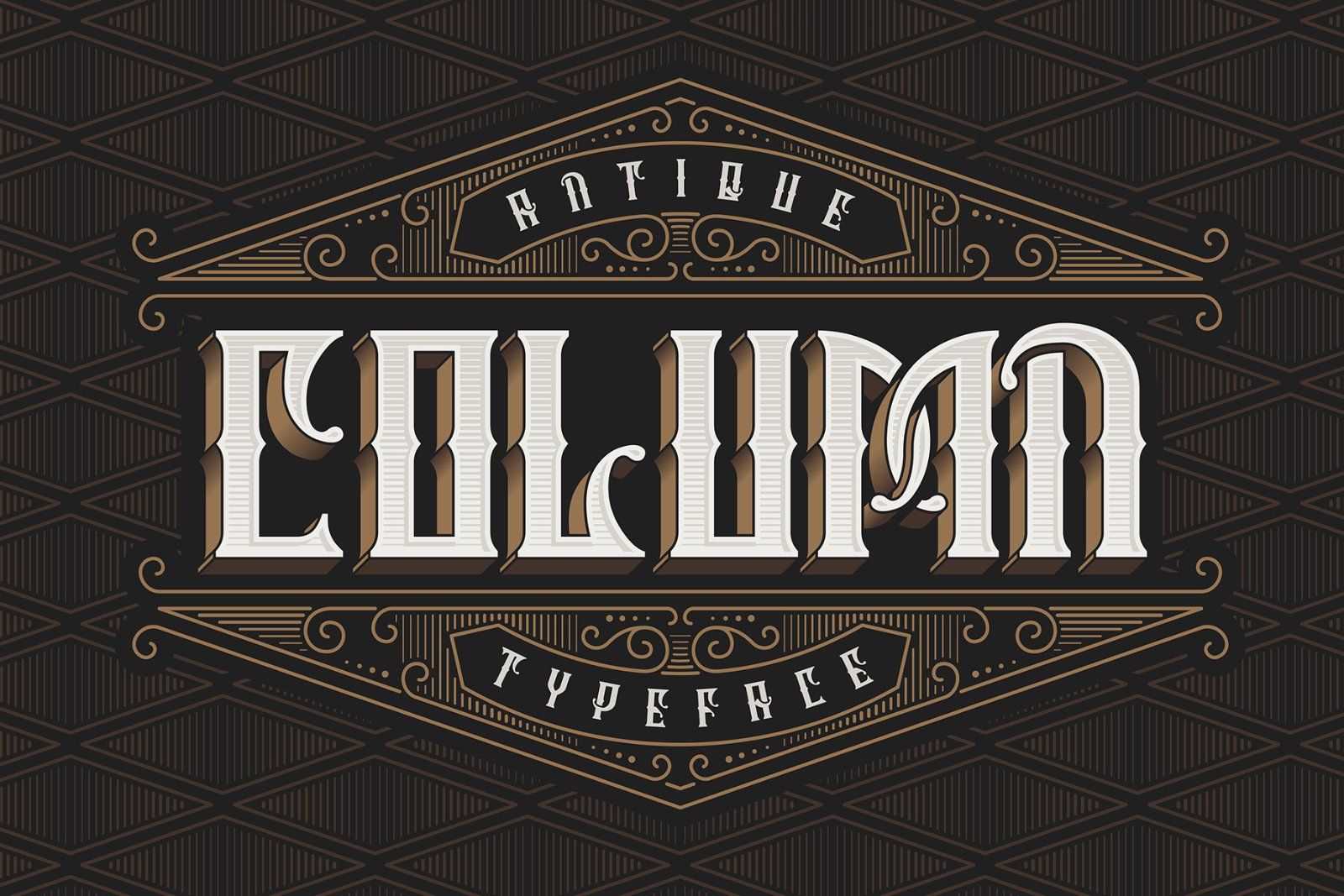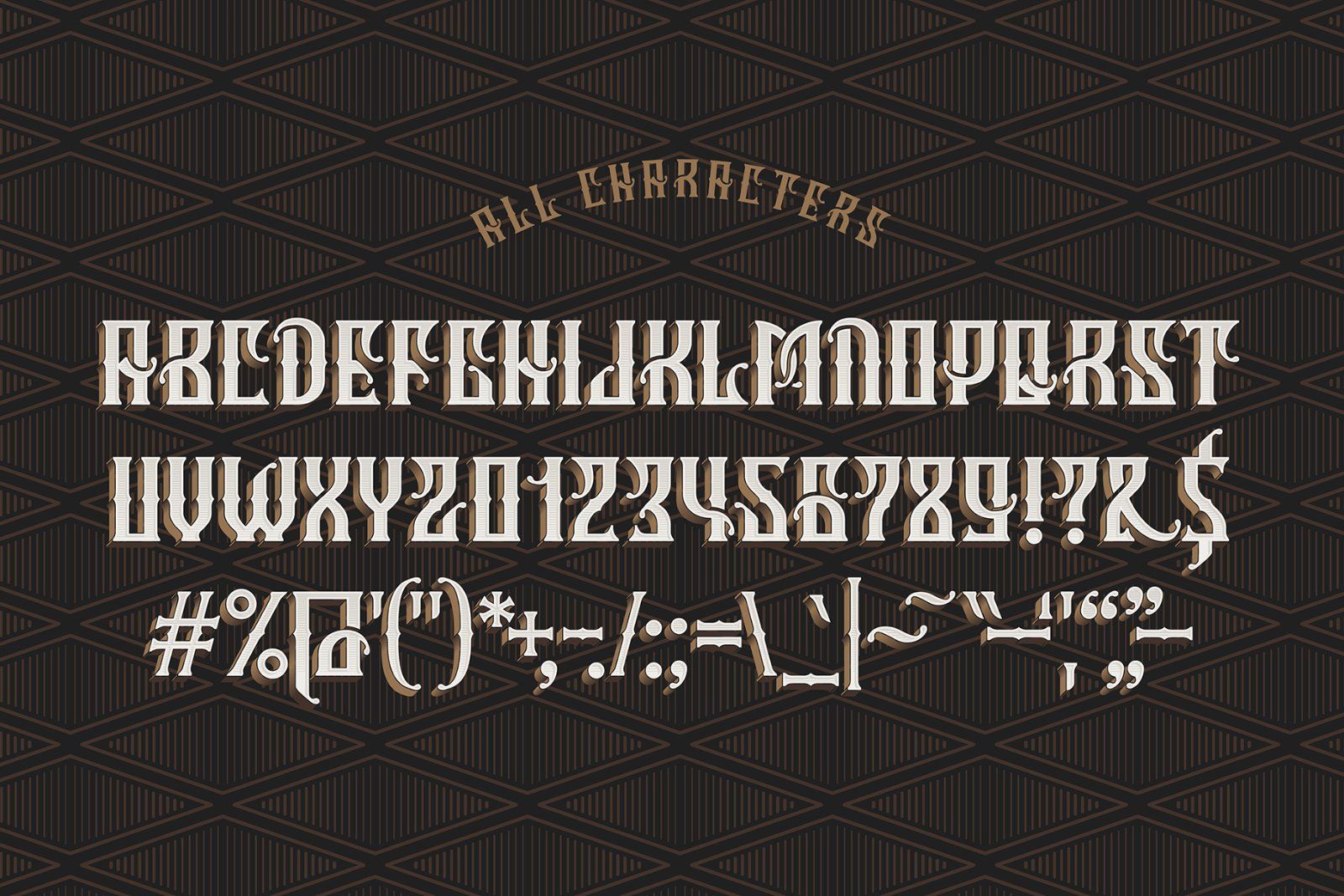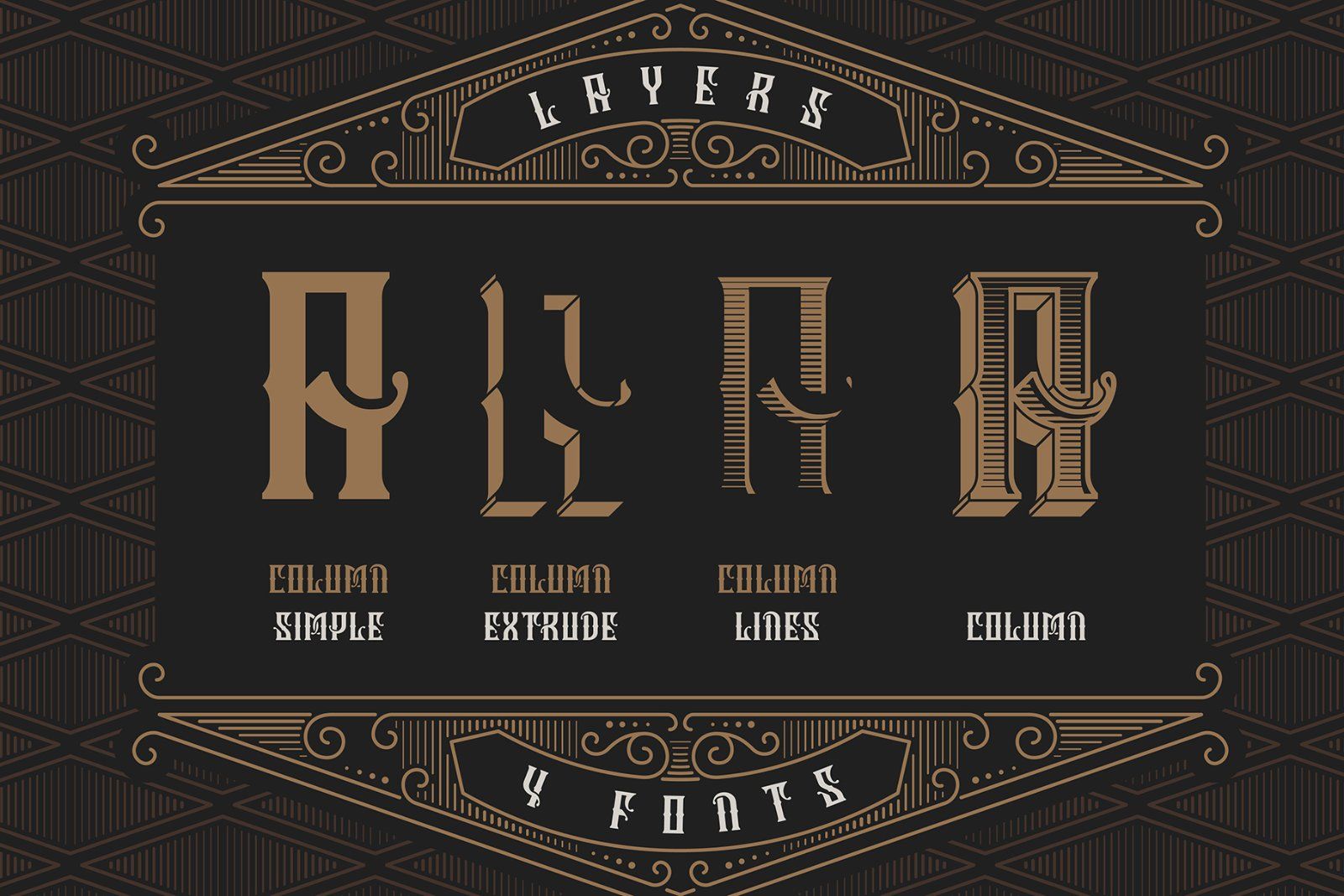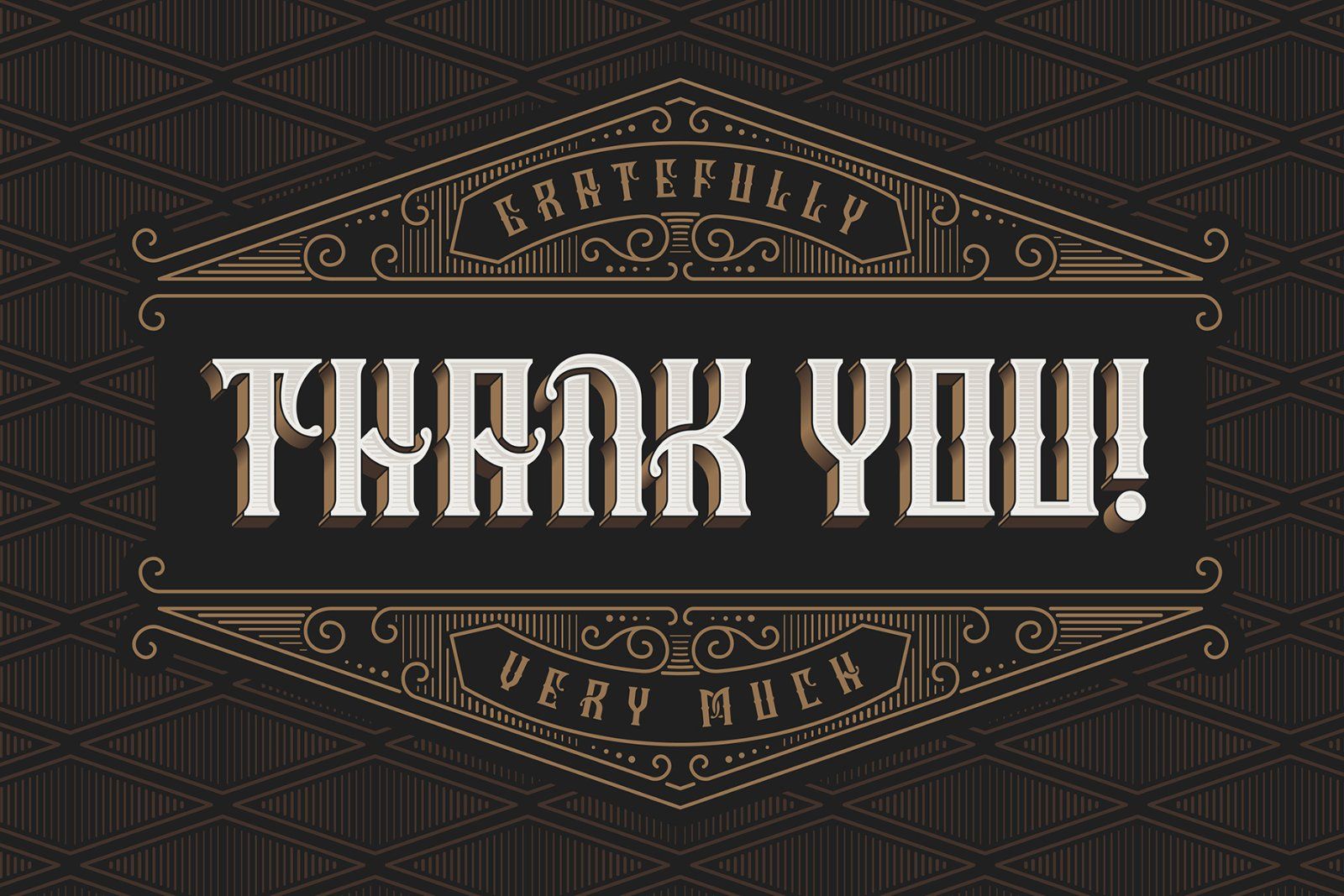
Hello, introducing Column Typeface set. It's a vintage classic look font with added volume and graphic lines effect. For each effect you'll find a separate font file for easy combining and recoloring. Inside you'll got four font files in OTF, TTF and WOFF file format each. Also vector EPS v.10 with all characters included. In this Eps all the characters are represented with all effects and gradients, as shown on screenshots. As a bonus included the first screenshot in EPS v.10 format, with vector decorative ornate and background pattern.
Note: the font contains only Latin letters (all the characters you can see on second screenshot)